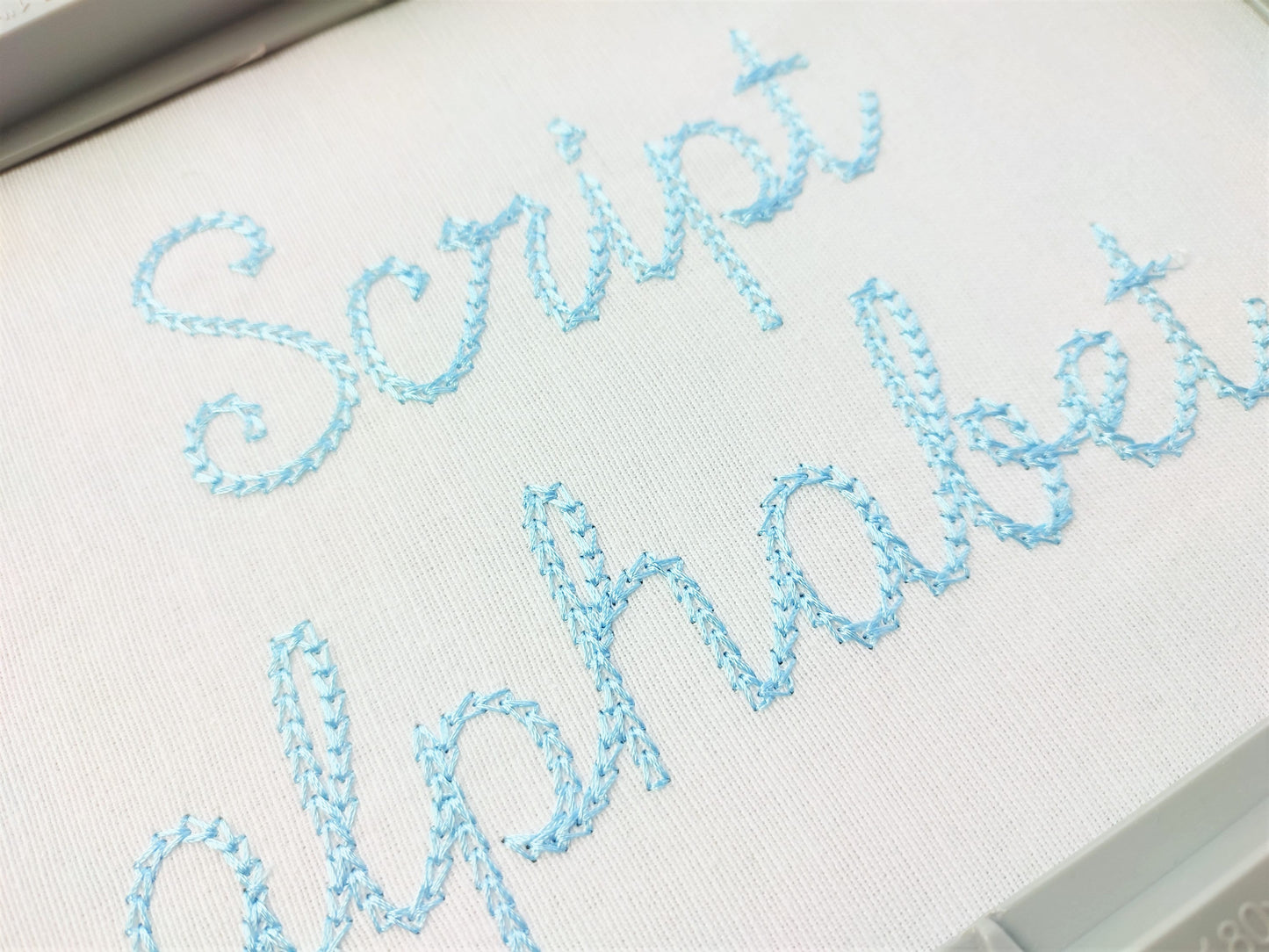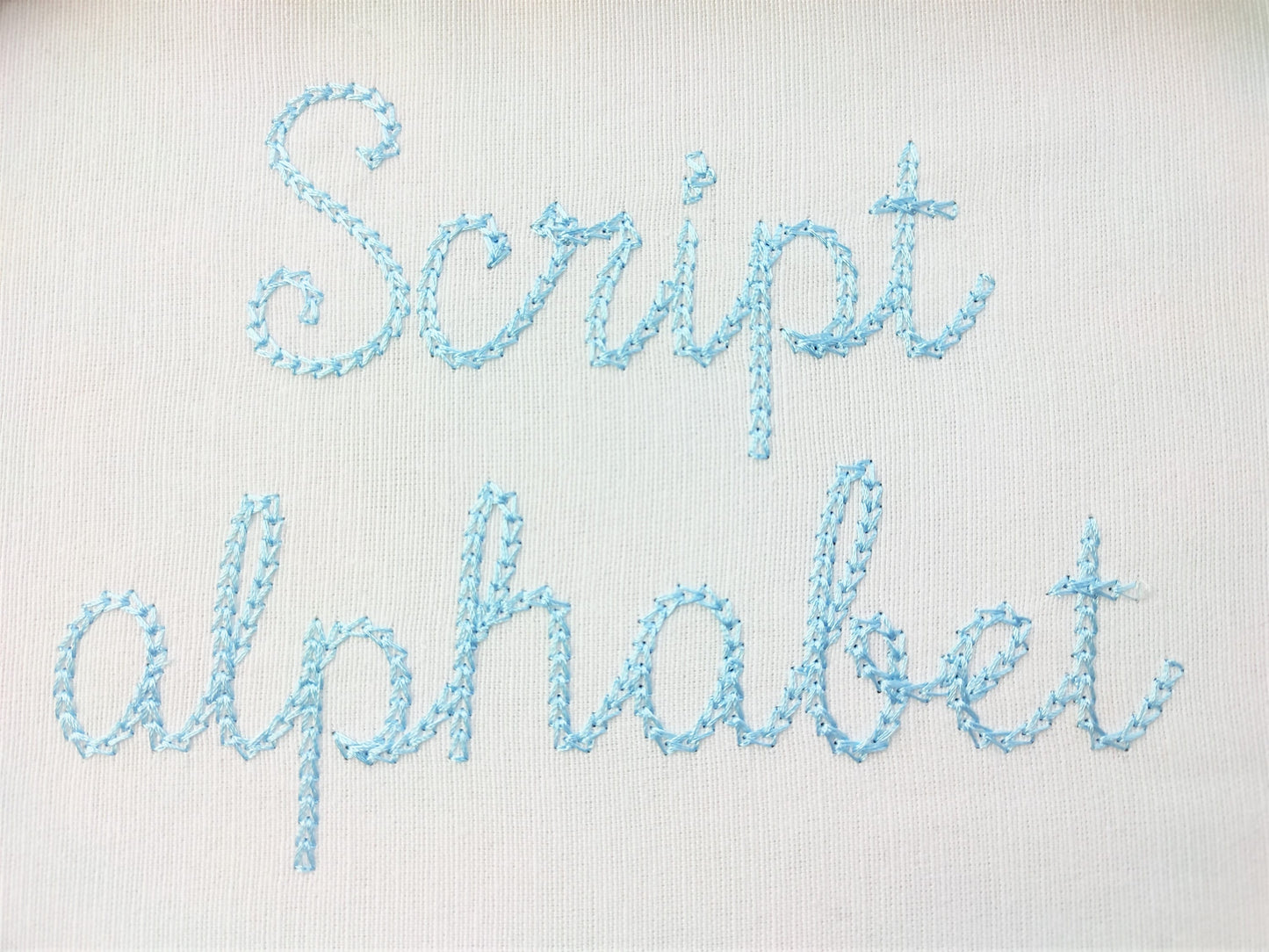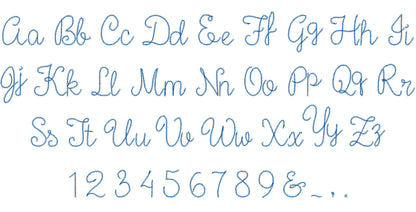
Quick Light Chain Stitch Handwritten Mini Font
Included: Uppercase A-Z, Lowercase a-z, Numbers 0-9, Punctuation
A quick, light chain stitch script with a playful linked look. Great for kids' names, necklines, pockets and small gifts.
Uppercase and lowercase letters, numbers 0 to 9 and punctuation, in five sizes; the tallest letters measure about 1.7 to 3.7 inches. Light chain stitching that sews out fast.
• Light chain stitch handwritten font
• Uppercase, lowercase, numbers 0 to 9, punctuation
• 5 sizes